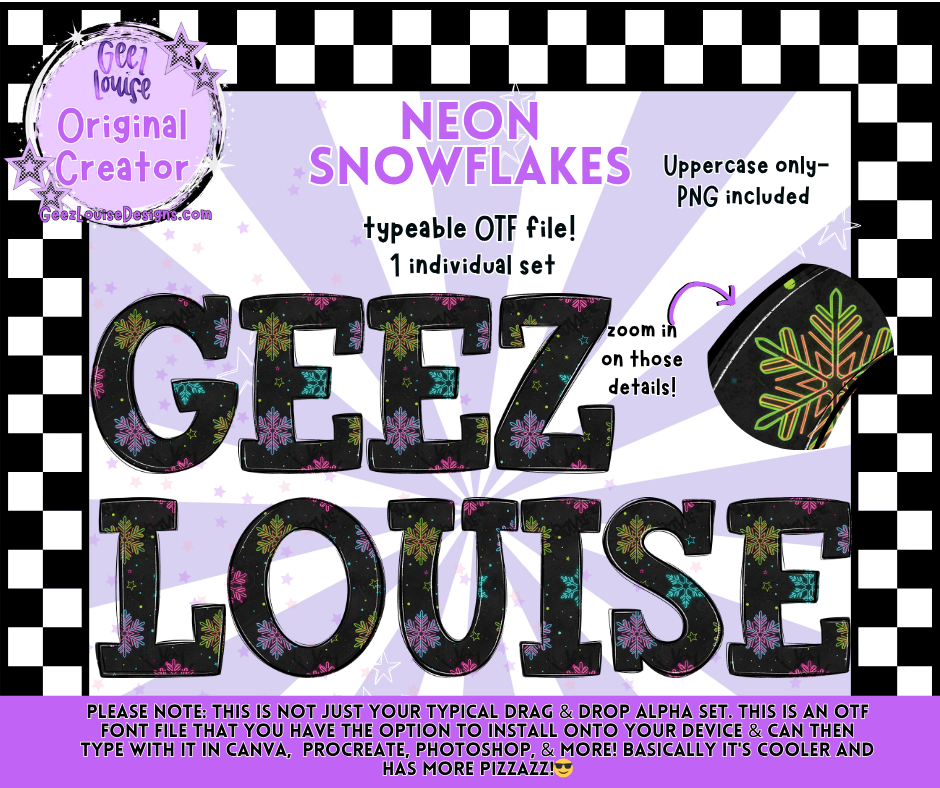
Neon Snowflake Typeable OTF Font + PNG Set
Bring the party to your pixels with the Neon Snowflake Typeable OTF Font — a dazzling blend of holiday sparkle and rebellious charm. ❄️💥
This typeable OTF file features uppercase letters decked out in vibrant neon textures, shimmering snowflakes, and bold color pops. Each character is handcrafted to radiate festive chaos — perfect for designs that want to stand out, shout loud, and sparkle unapologetically. Works seamlessly in Canva, Procreate, Photoshop, and more.
Holiday drops with edge
Boutique branding that breaks the rules
Tees, stickers, and digital designs that glow
Seasonal graphics with snark and shimmer